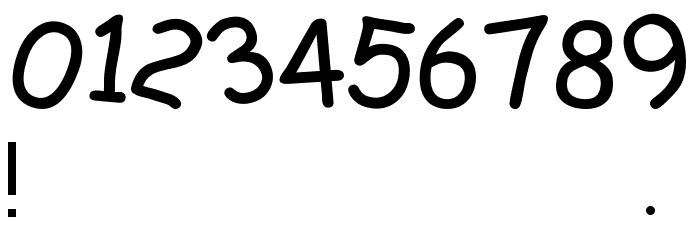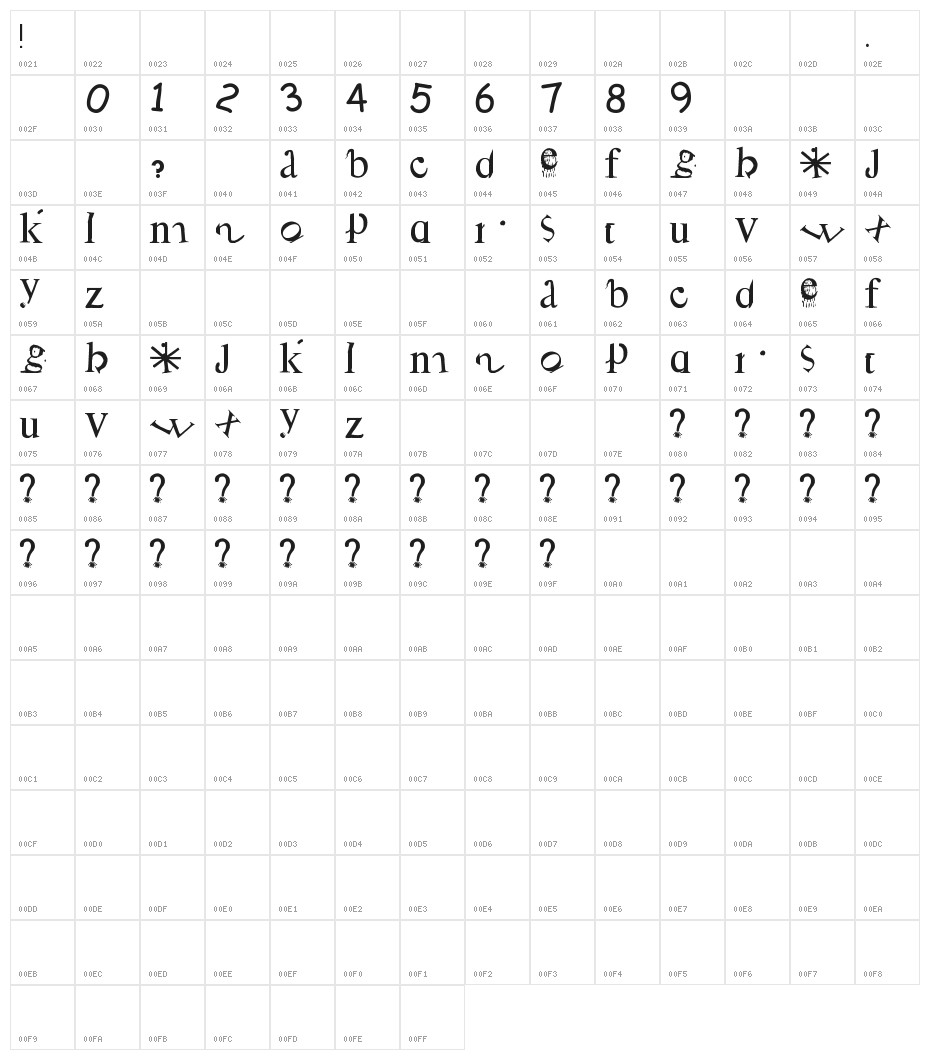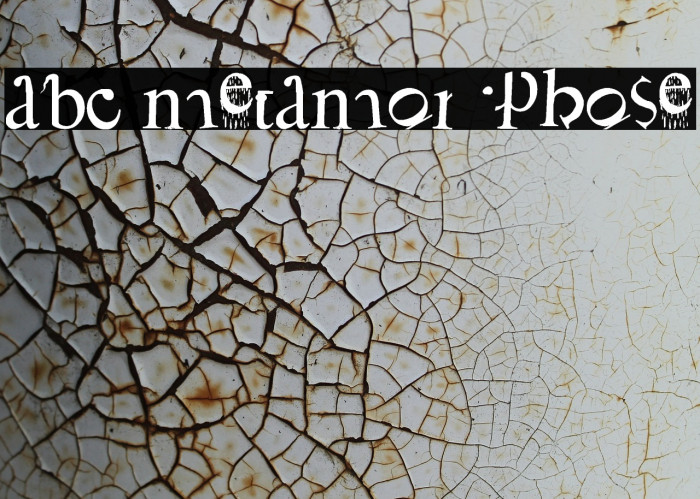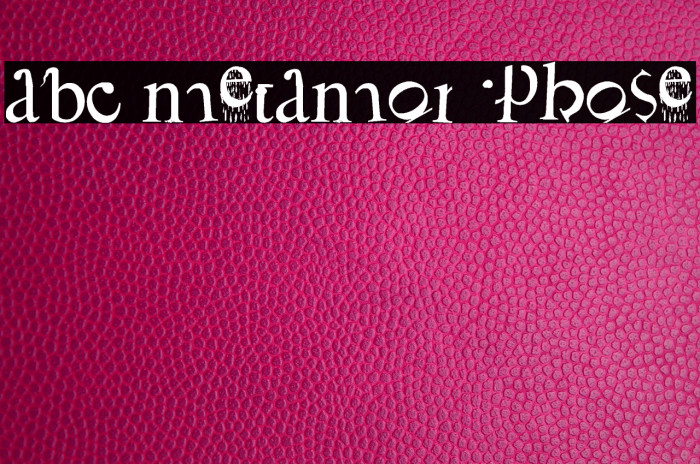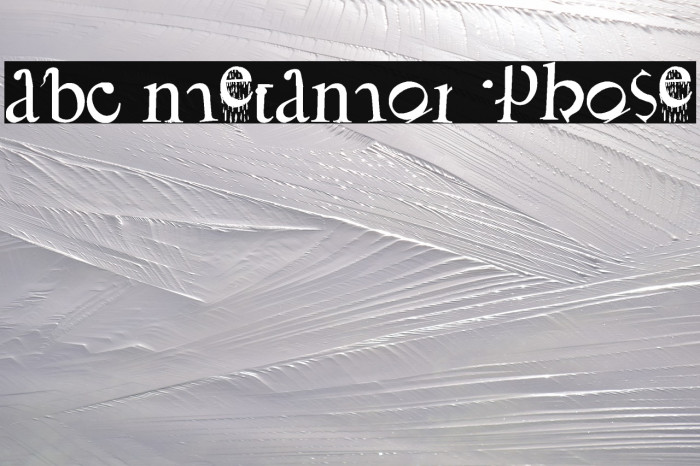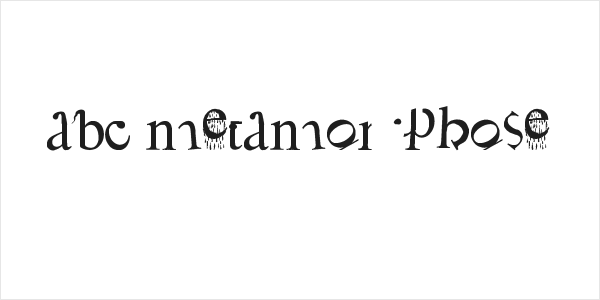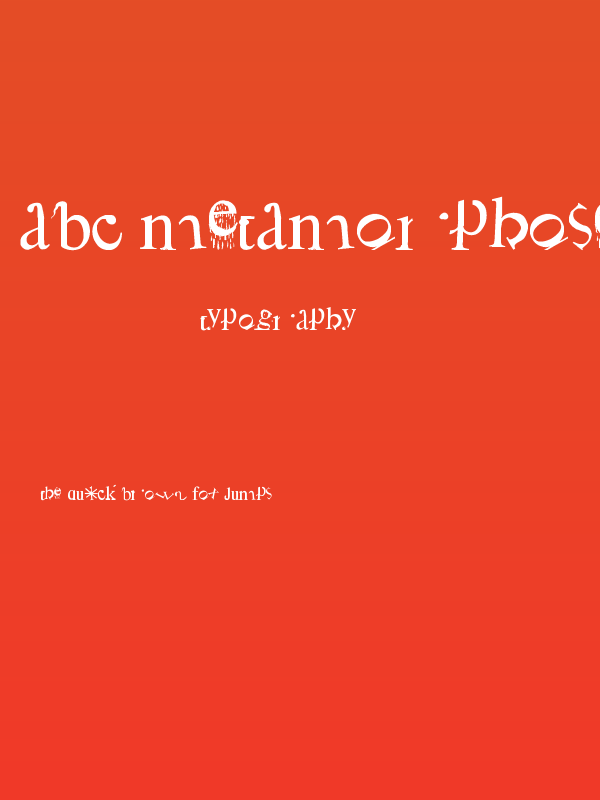
ABC Metamorphose Font
ABC Metamorphose Description
This font is a striking blend of classic and modern elements, featuring unique and artistic letterforms that stand out with their decorative flair. The uppercase letters have a distinct, almost whimsical quality, with some characters incorporating unexpected shapes and flourishes. The lowercase letters maintain a more traditional form but are still infused with creative twists, such as the playful tails and varying stroke widths. The numerals are bold and slightly exaggerated, adding to the font's overall expressive nature. Special characters are equally distinctive, with bold and imaginative designs that complement the alphabet. This font's artistic and unconventional style makes it ideal for projects that require a touch of creativity and individuality.
| Proposed Projects | Ideal for creative projects such as posters, album covers, branding, and artistic invitations. |